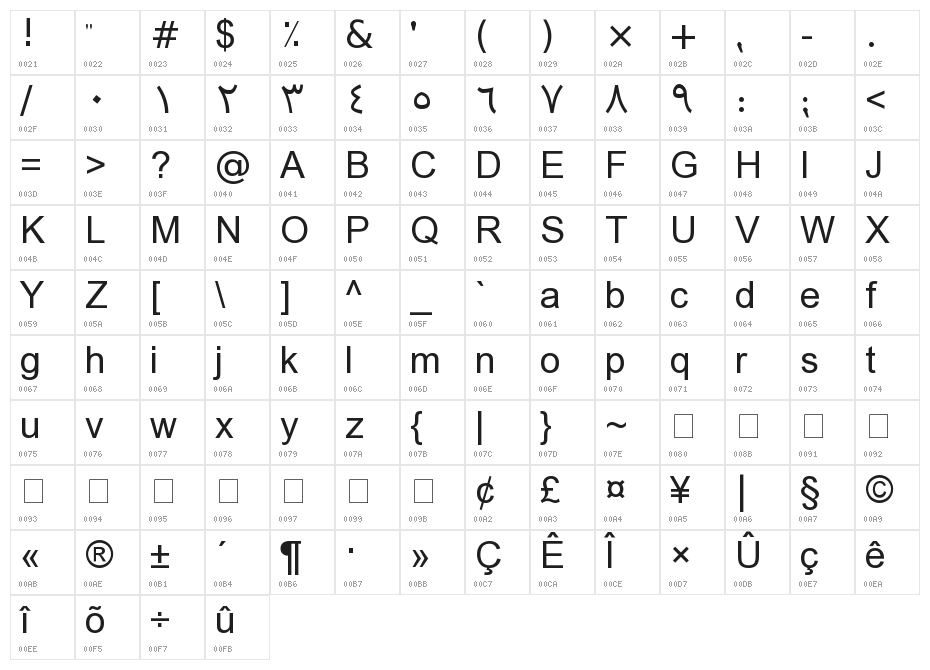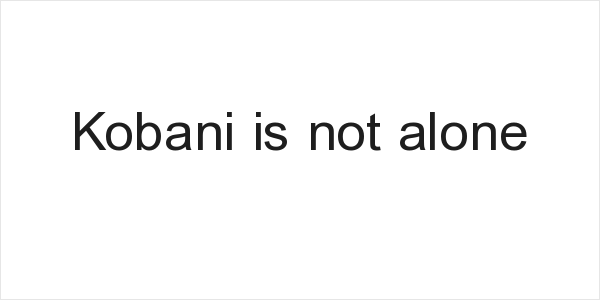
Kobani is not alone Font
Kobani is not alone Description
This font features a clean and modern sans-serif style, characterized by its simplicity and clarity. The uppercase and lowercase letters are well-proportioned, with a consistent stroke width that provides a balanced appearance. The numerals and special characters maintain the same straightforward design, ensuring readability across various applications. The font's geometric shapes and uniformity make it versatile for both digital and print media. Its straightforward design is ideal for conveying information clearly and effectively.